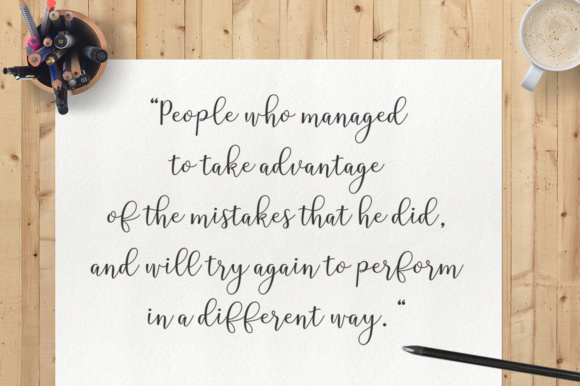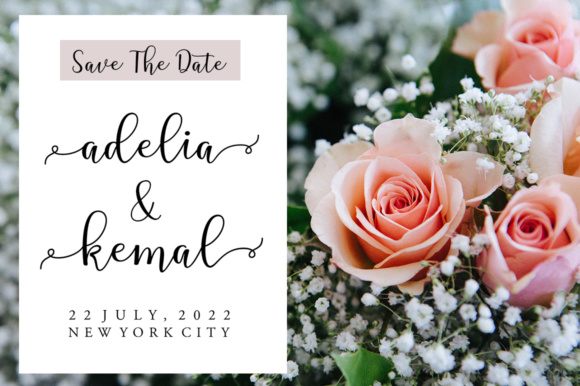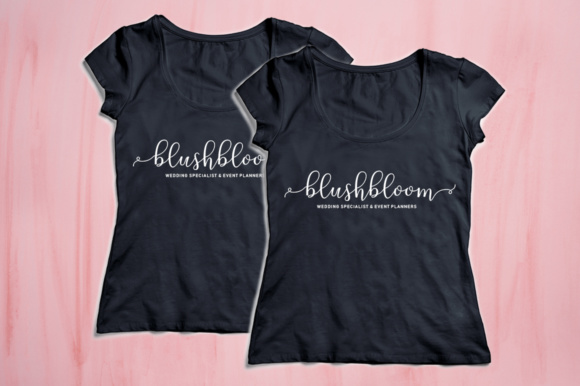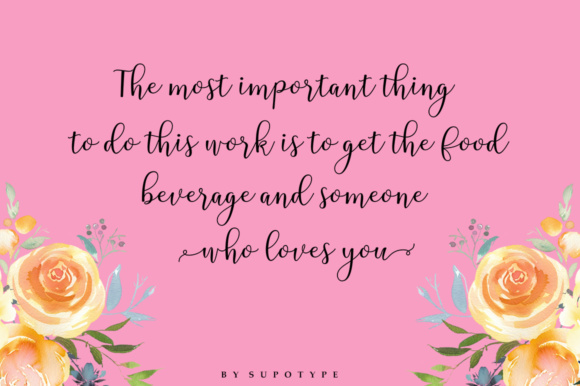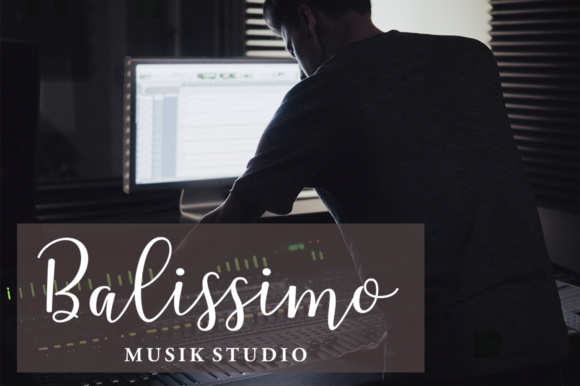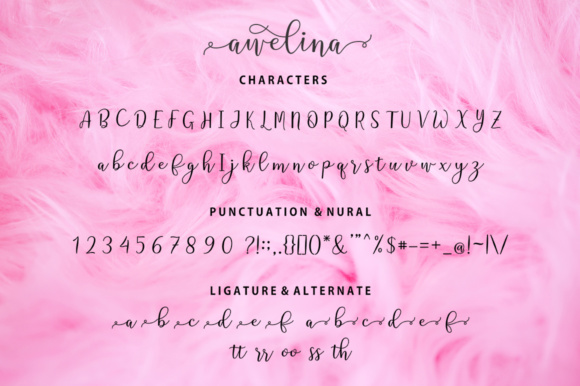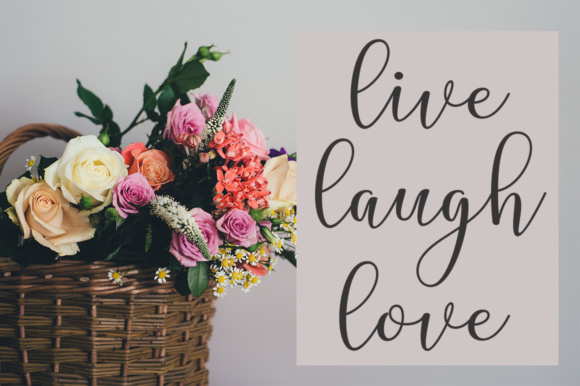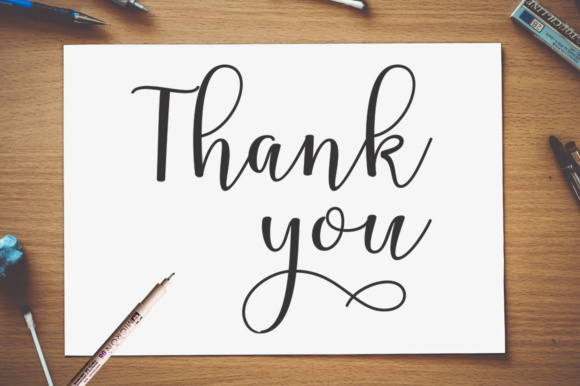
Awelina Script Font
About Awelina Script Font
The Awelina is a sweet calligraphy font. It’s dynamic and casual with a dancing baseline. It’s easy to use and perfect for branding, logos, greeting cards, quotes, and much more!